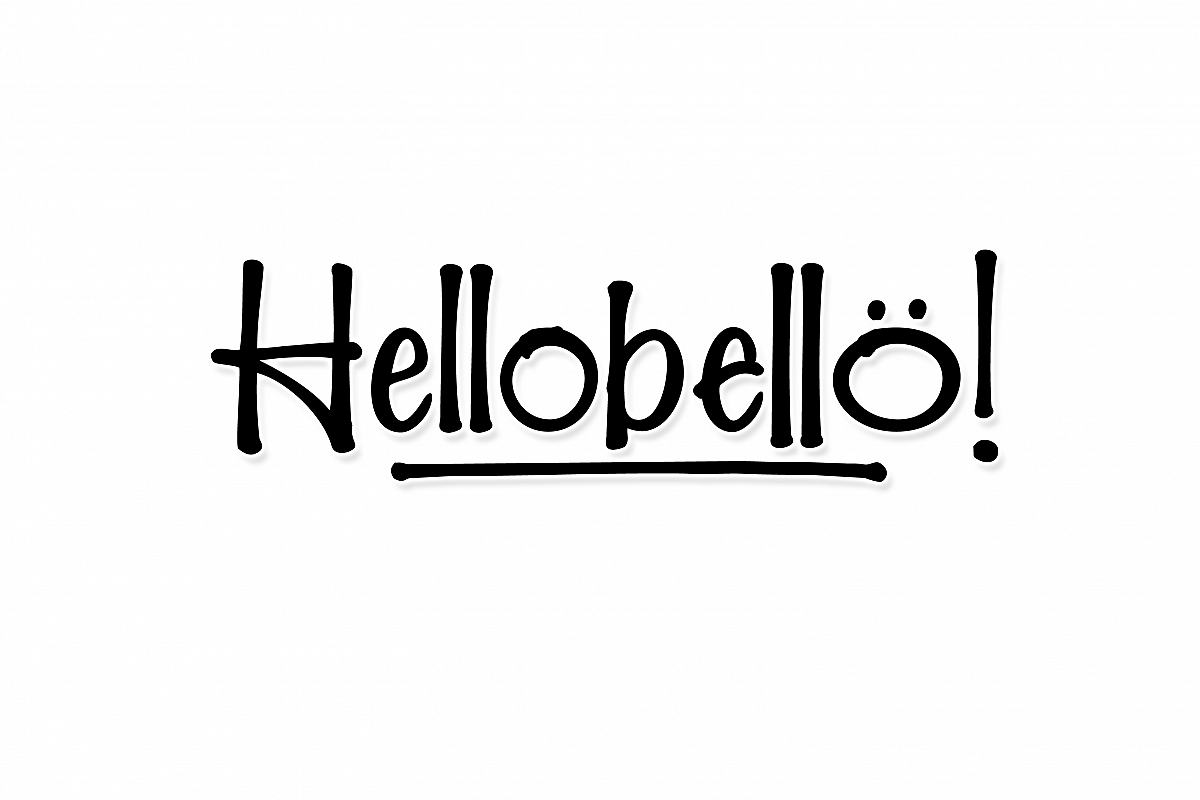
Created By Fargunstudio
Hellobello! - Marker font with Duo font set and Swashes
Hellobello! character ideas for logos, name tag,
handwritten quotes, product packaging, merchandise, social media,
greeting cards and many more.
• Uppercase & lowercase
• Punctuation & numerals
• Multi-language characters
• Designed by Fargun Studio 2017 ©